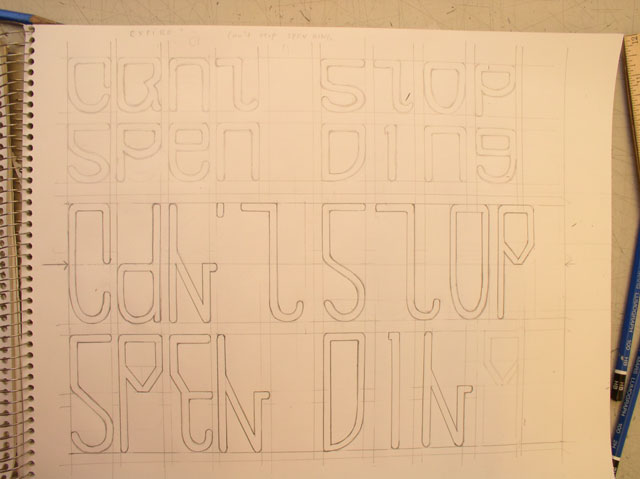
Shut up and listen final result
|  | Seungmi Louis - can't stop spen ding
People need to realize that it is very addictive and convenient to use credit-card because all they see is a piece of plastic with numbers that they could use any time but they could not afford.
I found the similarity between the numbers and letter forms on credit cards. I started to develop a typeface which combine elements from both. | |